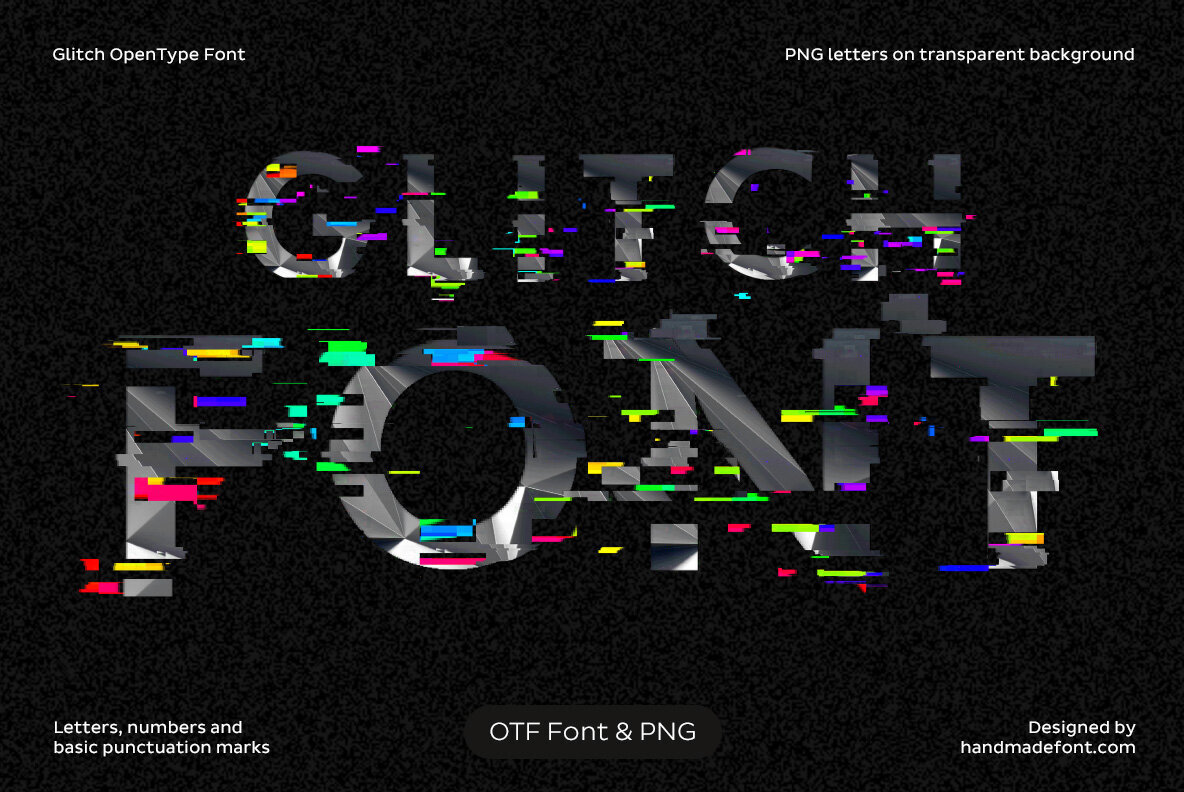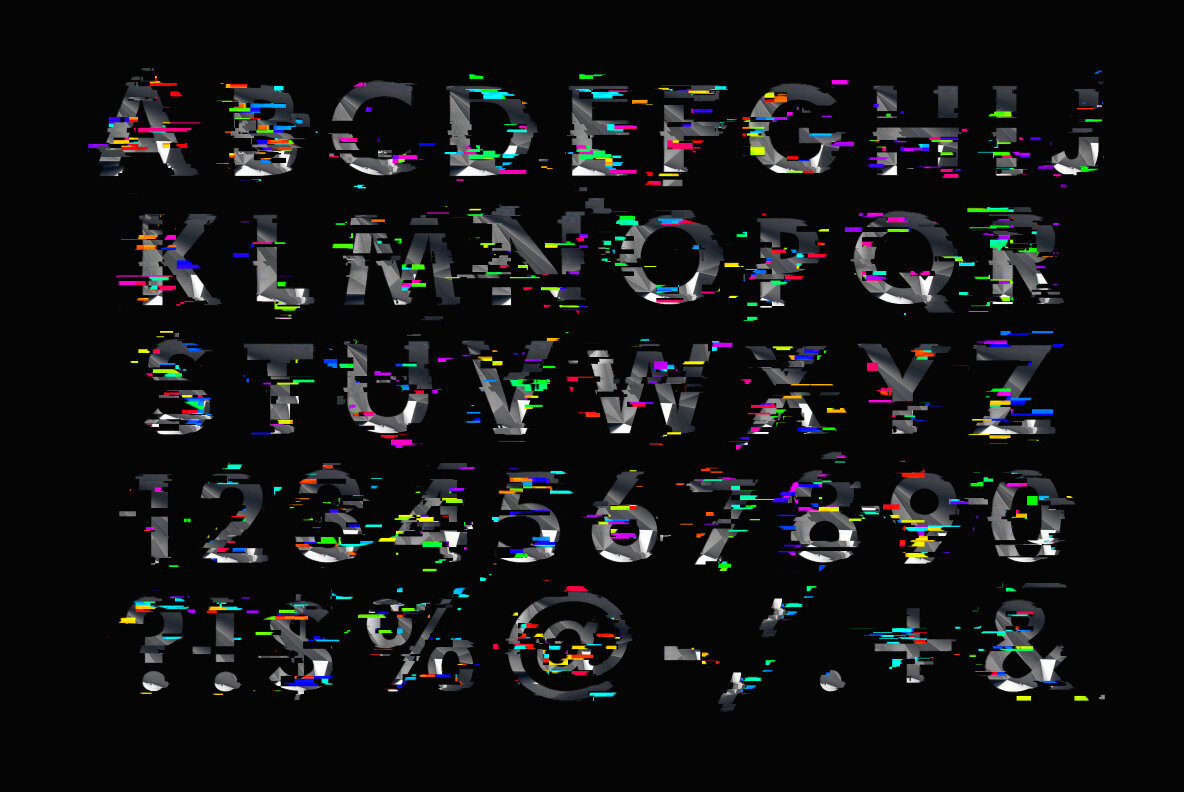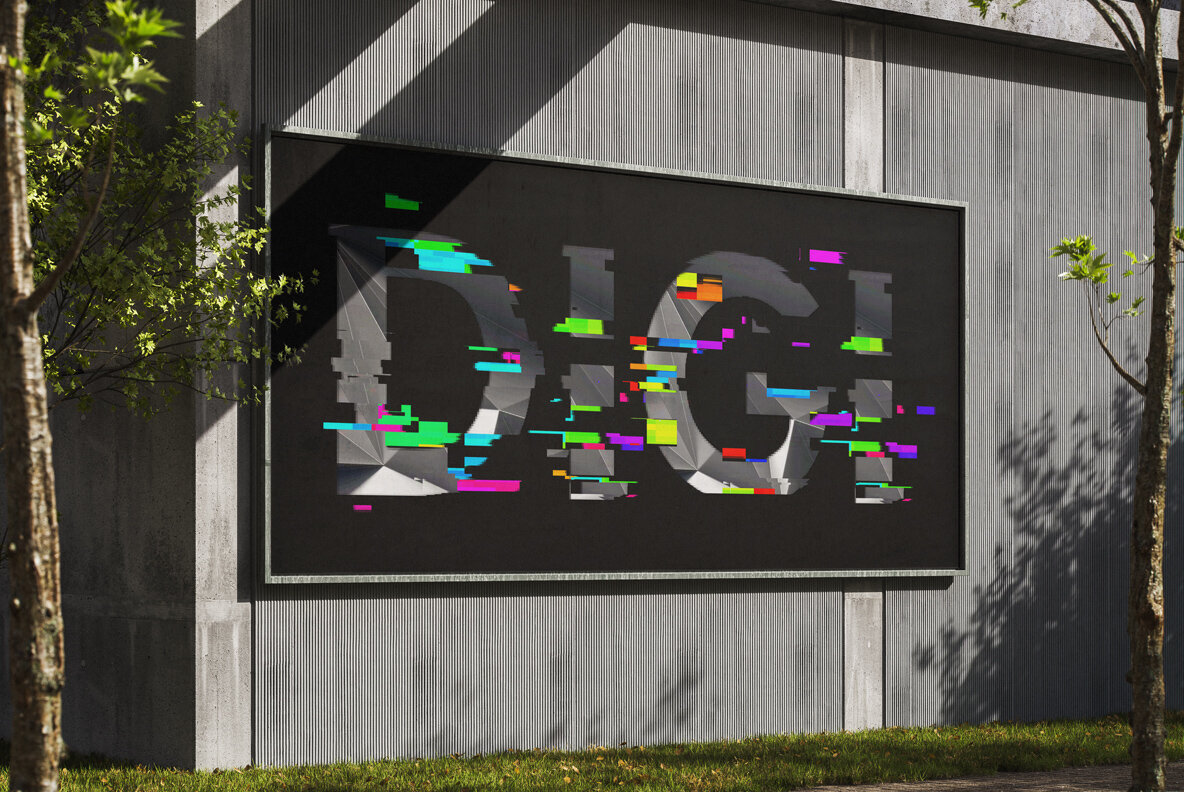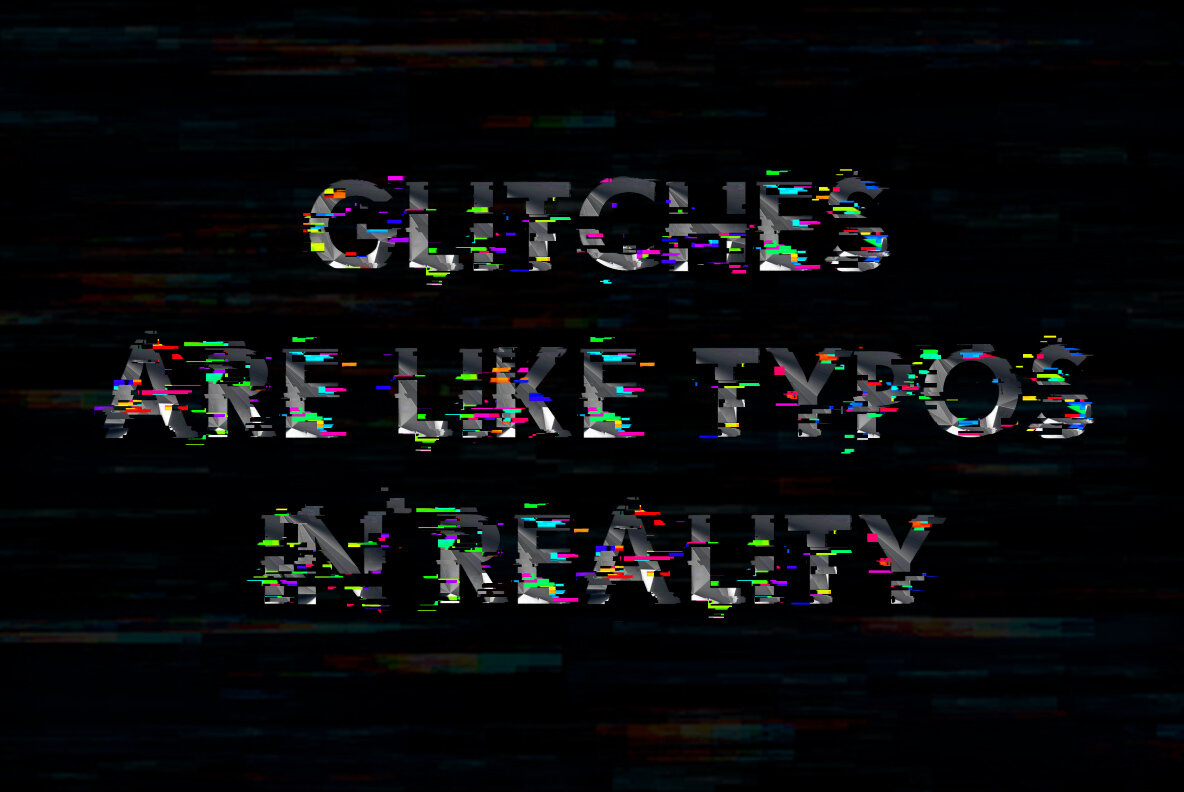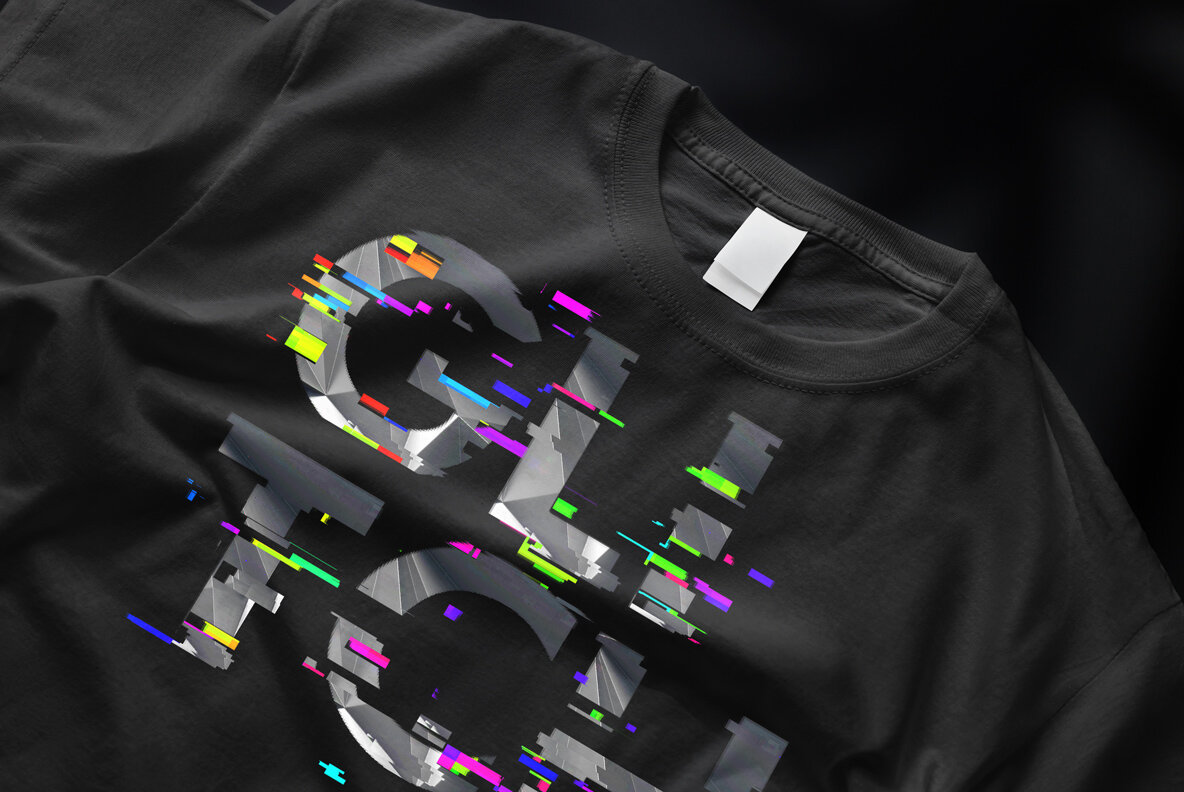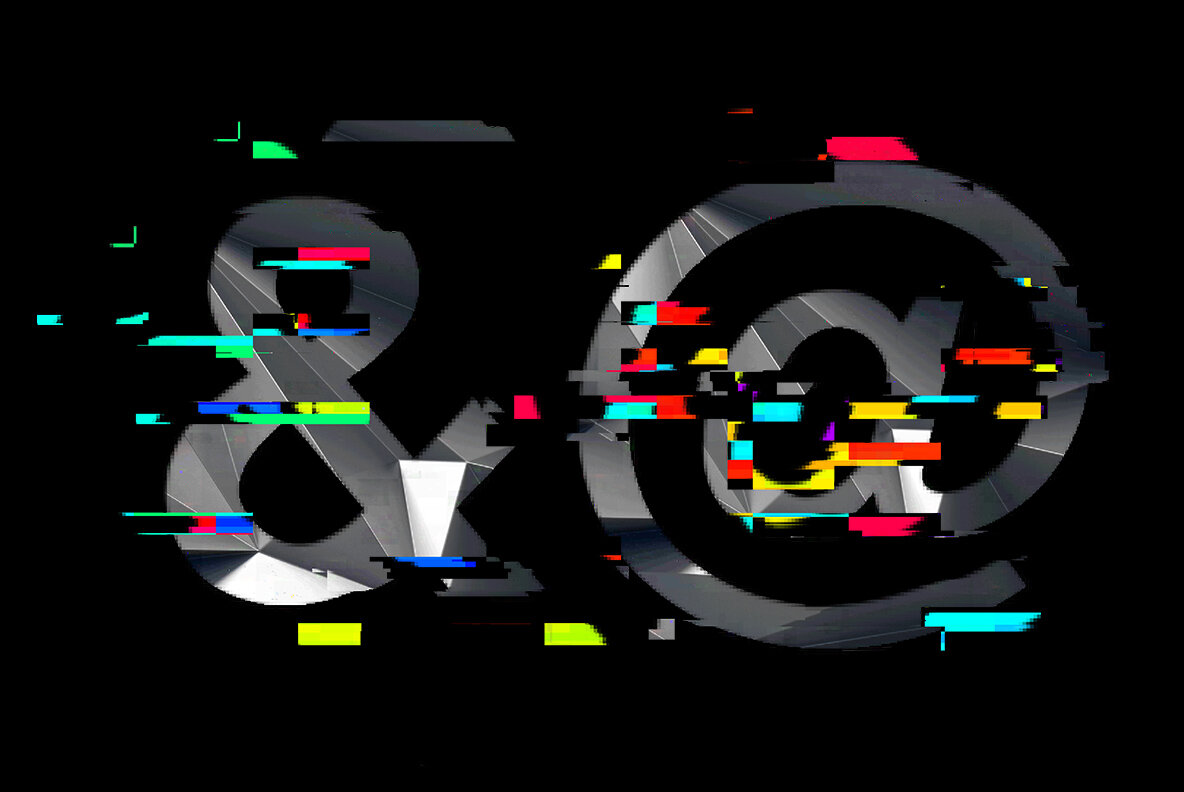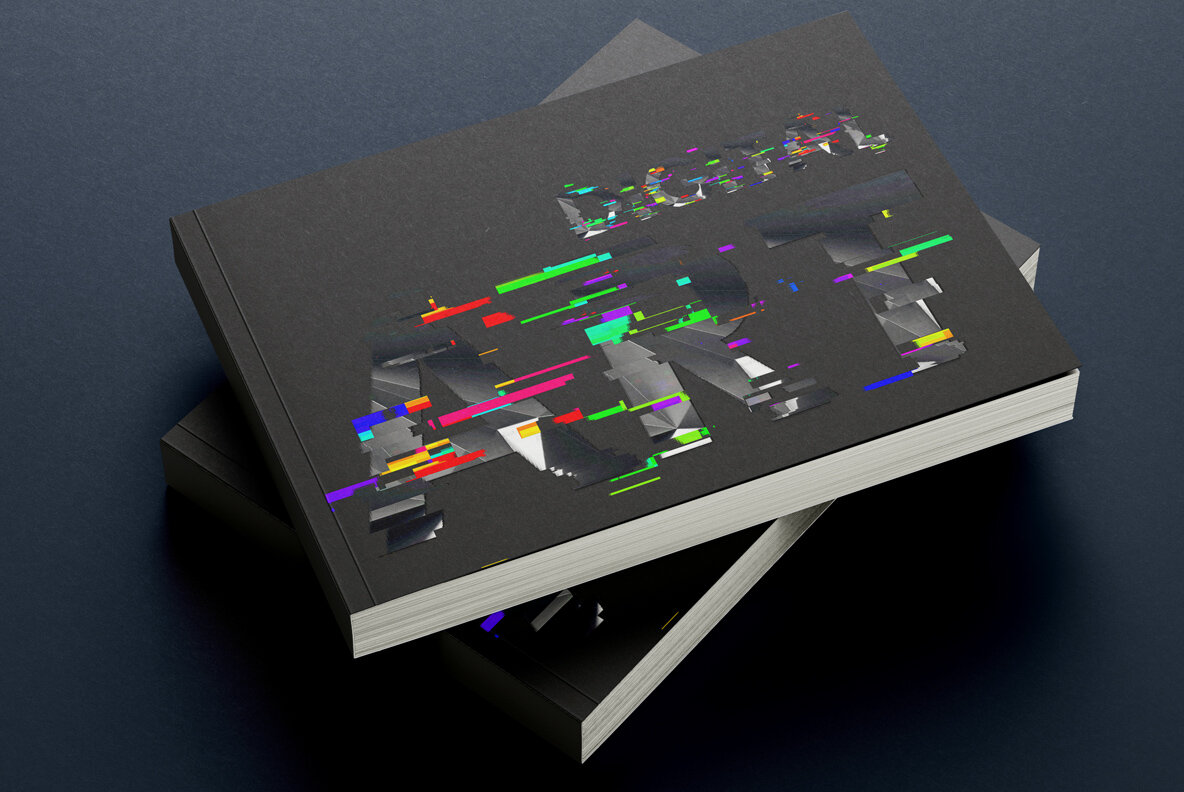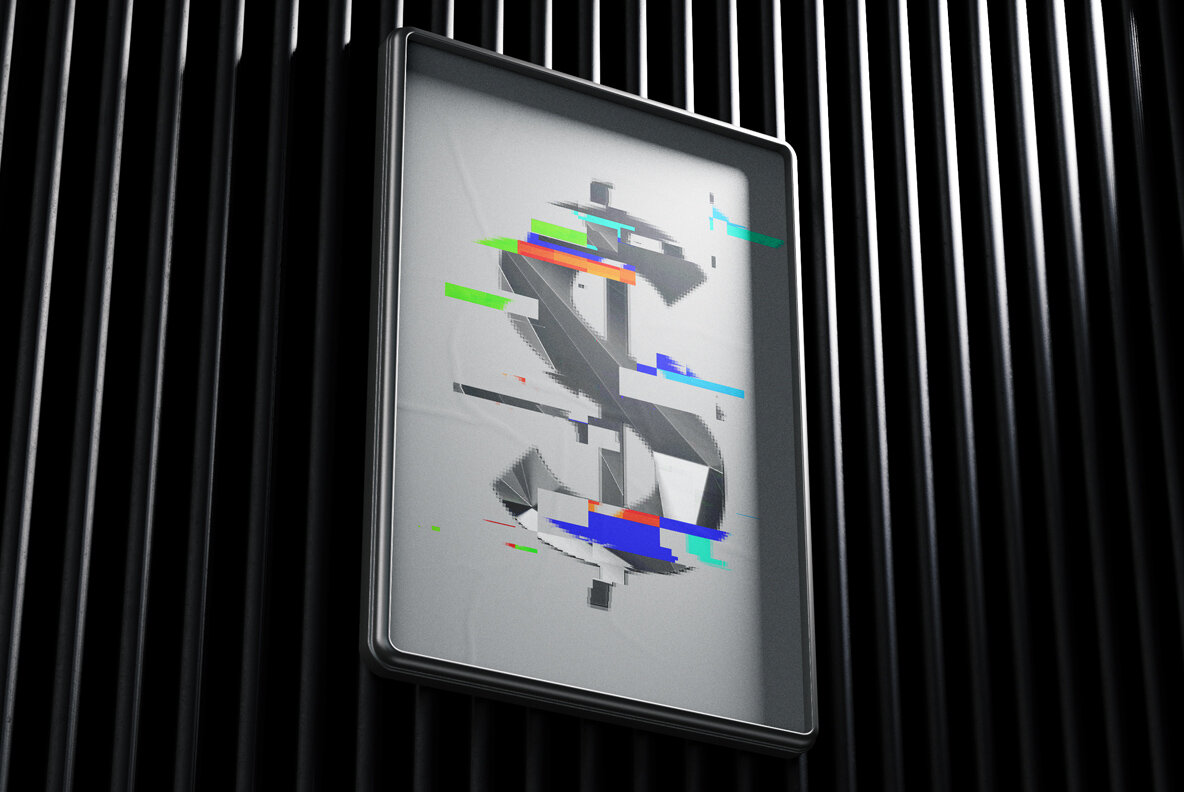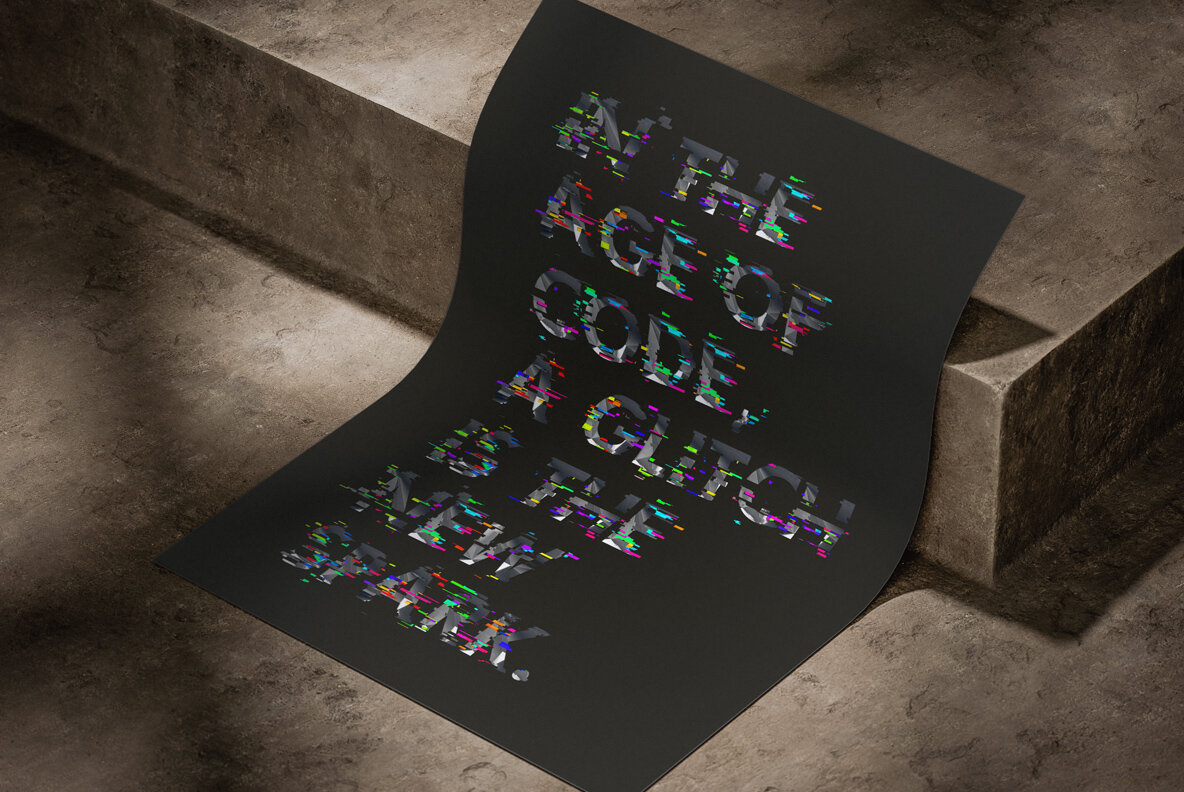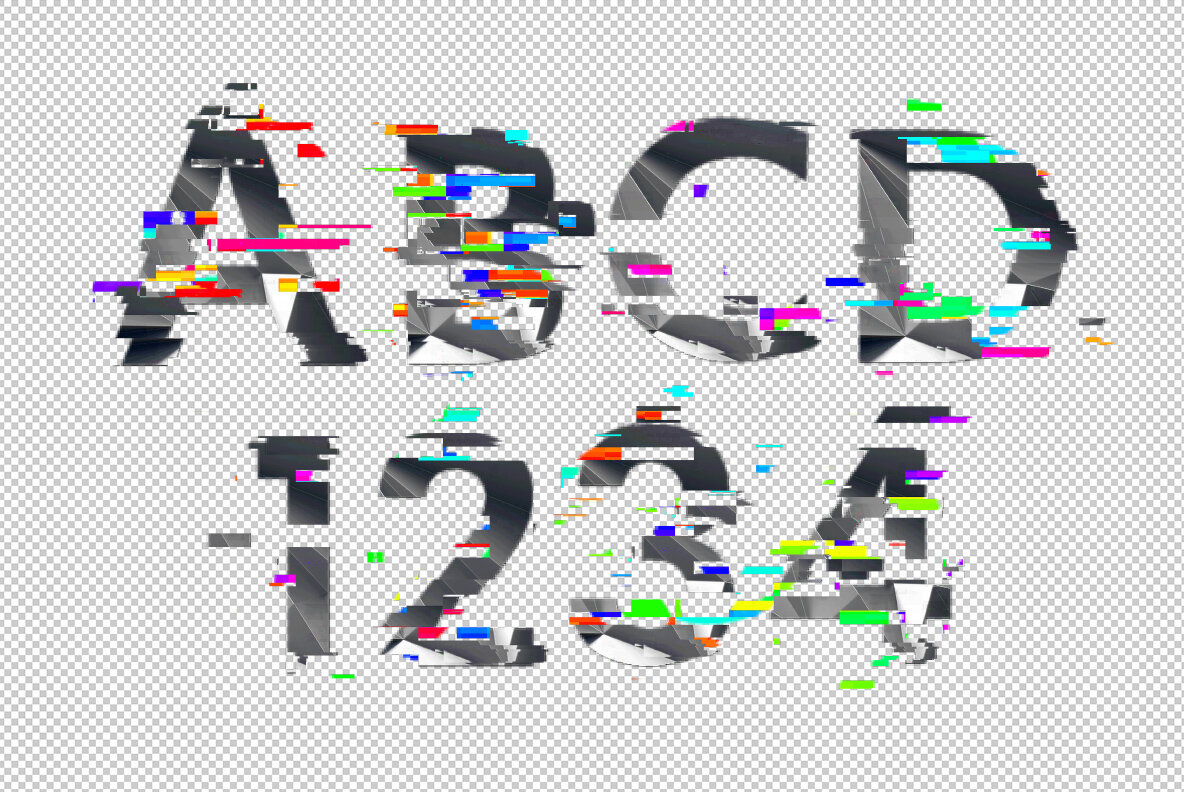
Glitch Font is not just a typeface—it’s an electrified visual experience. Every letter is fractured, as if the digital fabric itself has torn, revealing bursts of neon static and pixelated distortion. It’s chaos made beautiful, a perfect storm of technological breakdown and visual energy. Ideal for cutting-edge designs, cyberpunk aesthetics, and tech-forward projects, this font doesn’t just communicate—it disrupts. With Glitch Font, your message doesn’t sit quietly on the page—it crackles, buzzes, and pulses with a digital heartbeat. When you need to make noise in a world of whispers, Glitch Font is your weapon of choice. A high definition OpenType Font. Contains uppercase characters, numerals and basic punctuation. (Draw height roughly 800 pixels). All letters and glyphs that comprises this font you can see on the preview. The font is a colour OpenType file which means this font will show up only in apps that are compatible with color bitmap fonts. Now that OpenType-SVG has been adopted as the industry standard, there is good chance that you can start using color fonts across your favorite software and hardware (Photoshop, Illustrator, InDesign, QuarkXPress, Keynote, PowerPoint, Word etc.) However all characters are also included as individual .png files which can be opened in any graphics software. Each letter comes as a separate PNG file on a transparent background. Each image has the high resolution size of 4000x4000px. This downloadable package contains 52 files. Letters : A B C D E F G H I J K L M N O P Q R S T U V W X Y Z Punctuation and Language Support. Due to the large nature of OpenType-SVG fonts, extended punctuation and language support are not included in the font files. However all punctuation characters and the following accents are included as individual image files in the .png letter set, which can be manually added to your text.